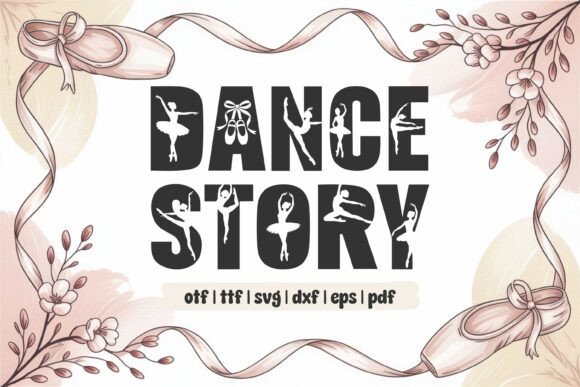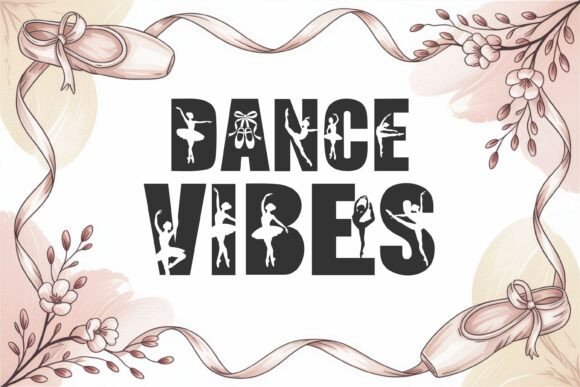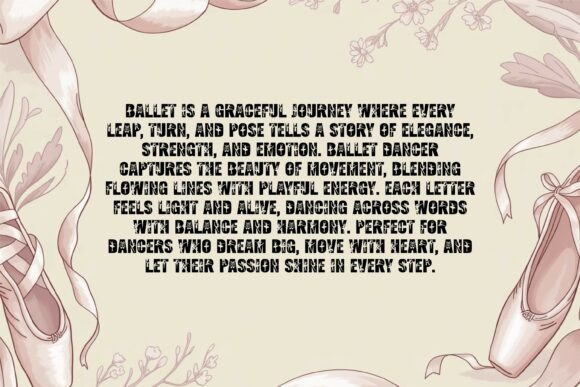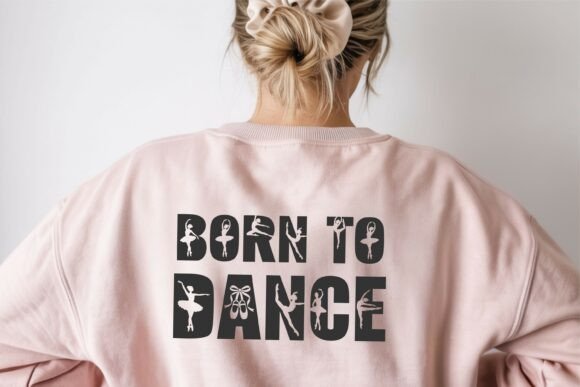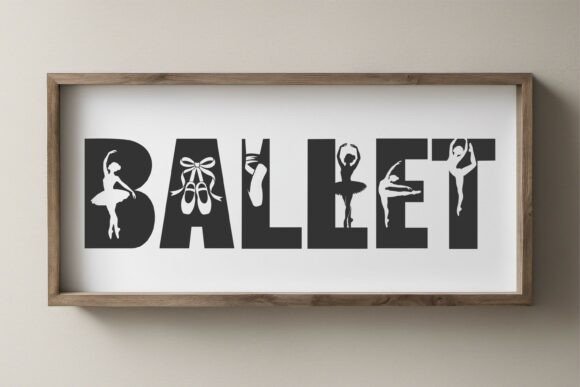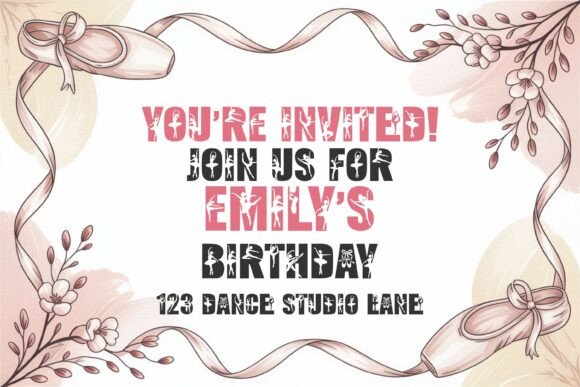
The Perfect En Pointe Typeface for Designers
Have you ever stood in a dimly lit studio, surrounded by the soft rustle of tutus and the gentle hum of music, watching a ballerina take center stage? The moment her foot touches the floor, a world of elegance and poise unfolds. That’s exactly the magic that the Ballet Dancer Font embodies.
This beautiful typeface is inspired by the very essence of ballet – movement, artistry, and a touch of whimsy. With bold letters filled with ballet silhouettes, pointe shoes, and flowing poses, this unique dance alphabet creates a refined yet playful style that’s perfect for designers looking to add a touch of drama and sophistication to their projects.
Whether you’re creating posters for a ballet performance, branding a dance academy, or designing event programs, the Ballet Dancer Font is a must-have in your design arsenal. Its delicate silhouettes and intricate character designs will transport your text to a world of enchantment, making it a true masterpiece for any arts-related project.
Ballet Dancer Font Key Features
- Unique Characteristics: The font features elegant, flowing lines and subtle ballerina-inspired motifs, adding a touch of whimsy and sophistication to designs.
- Style Options: The font includes various style options, including regular, bold, italic, and bold-italic, allowing designers to create a range of visual effects.
Ballet Dancer Font Review
Overall, I think the Ballet Dancer Font has some great qualities, but it also has some limitations that may deter some designers.
- ✨ Unique and elegant design that captures the essence of ballet ✨
- ✨ Beautifully crafted curves and lines that make it perfect for titles and headings ✨
- ✨ Highly legible even at small font sizes ✨
- ✨ Suitable for a variety of designs, from wedding invitations to fashion magazines ✨
- ⚠️ Limited font sizes and styles available ⚠️
- ⚠️ May not be suitable for body text due to its elegant and ornate design ⚠️
- ⚠️ Some characters may not be available or may be difficult to read ⚠️
The Ballet Dancer Font is a beautiful and elegant font that is perfect for designers who want to add a touch of sophistication to their designs. However, its limitations may make it less suitable for certain projects, such as body text or designs that require a wide range of font sizes and styles.
The Ballet Dancer Font is perfect for:
- Formal event invitations and programs
- High-end fashion and beauty branding
- Special occasion graphics and designs
To get the most out of the Ballet Dancer Font, experiment with different font sizes, colors, and styles. Pair the font with elegant backgrounds and graphics to create a sophisticated look. Use the font in combination with other design elements to add depth and interest to your design.